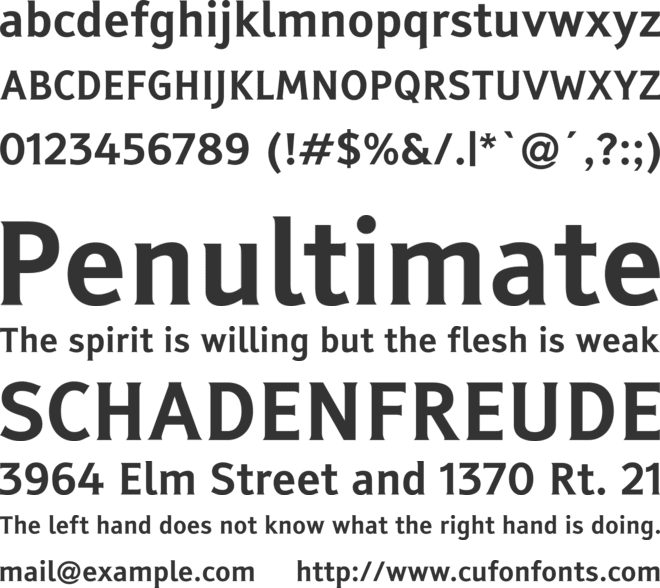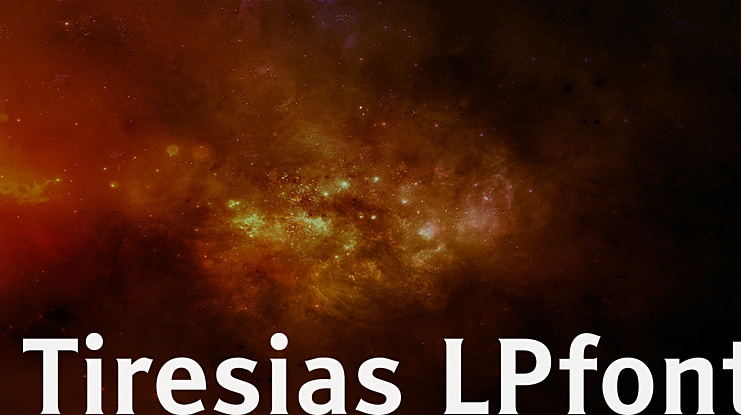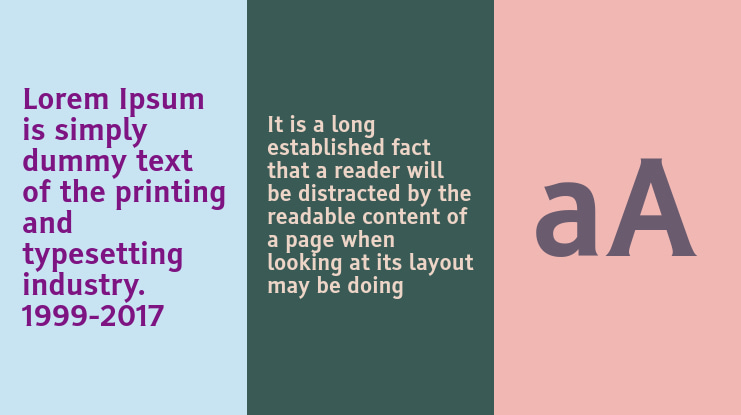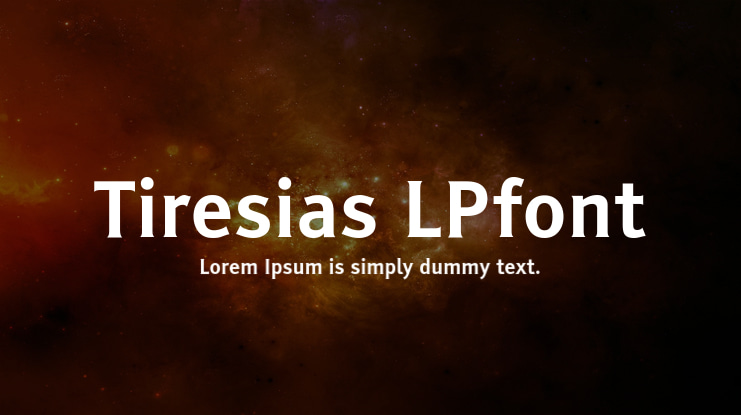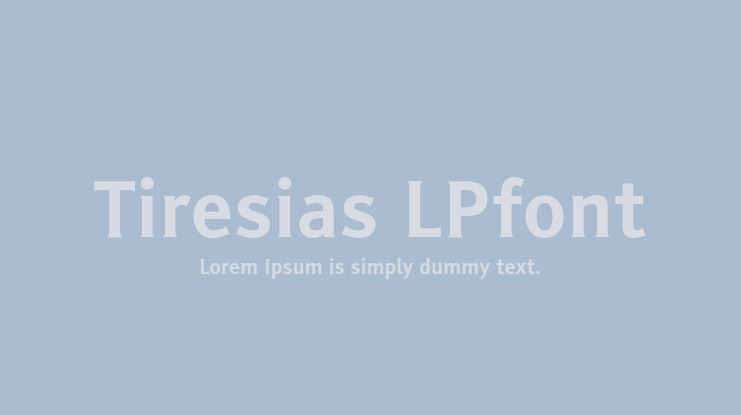
Tiresias LPfont Font Family
Tiresias is a family of realist sans-serif typefaces that were designed for best legibility by people with impaired vision at the Scientific Research Unit of Royal National Institute of the Blind in London
Tiresias LPfont – for large-print publications